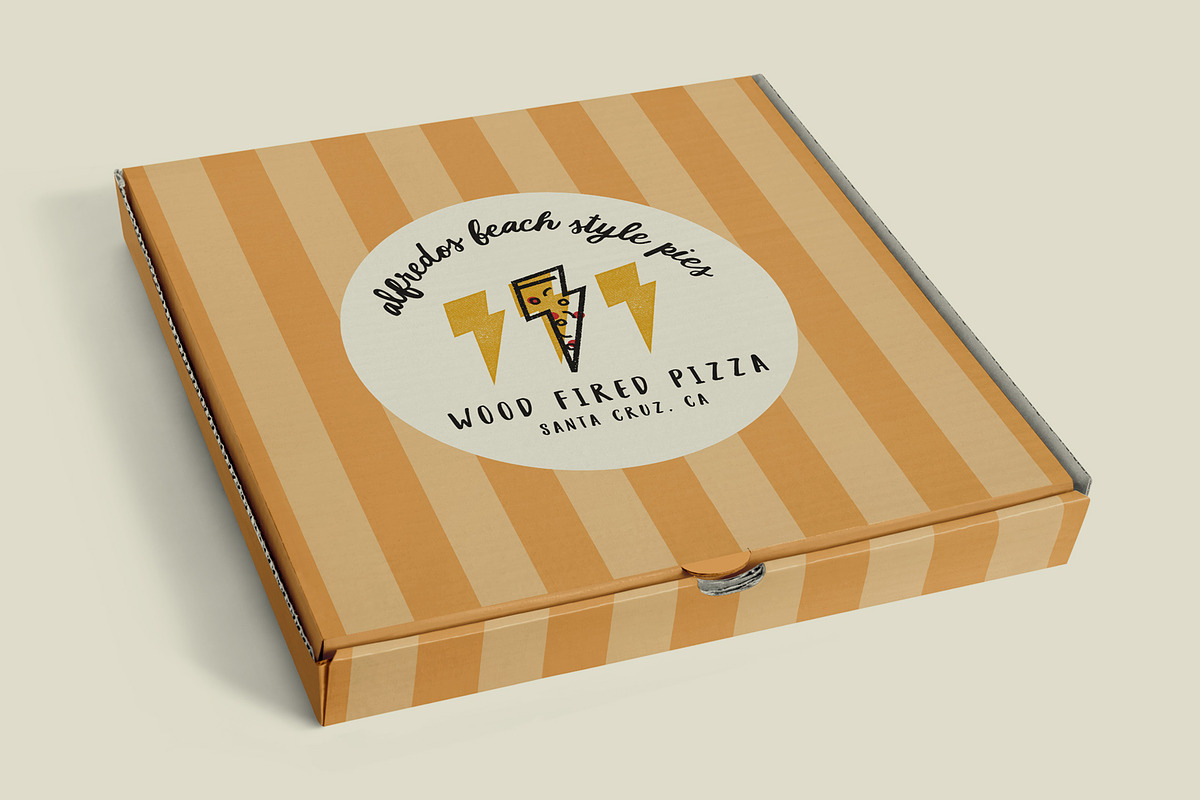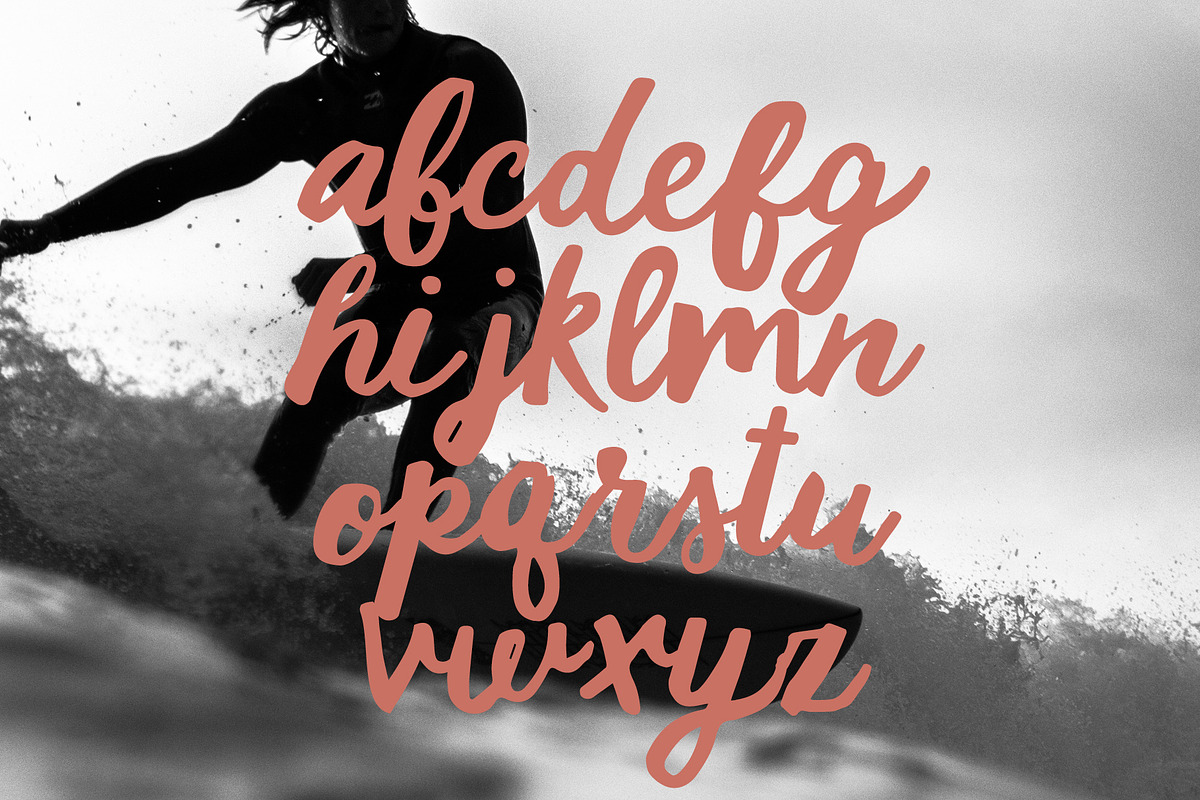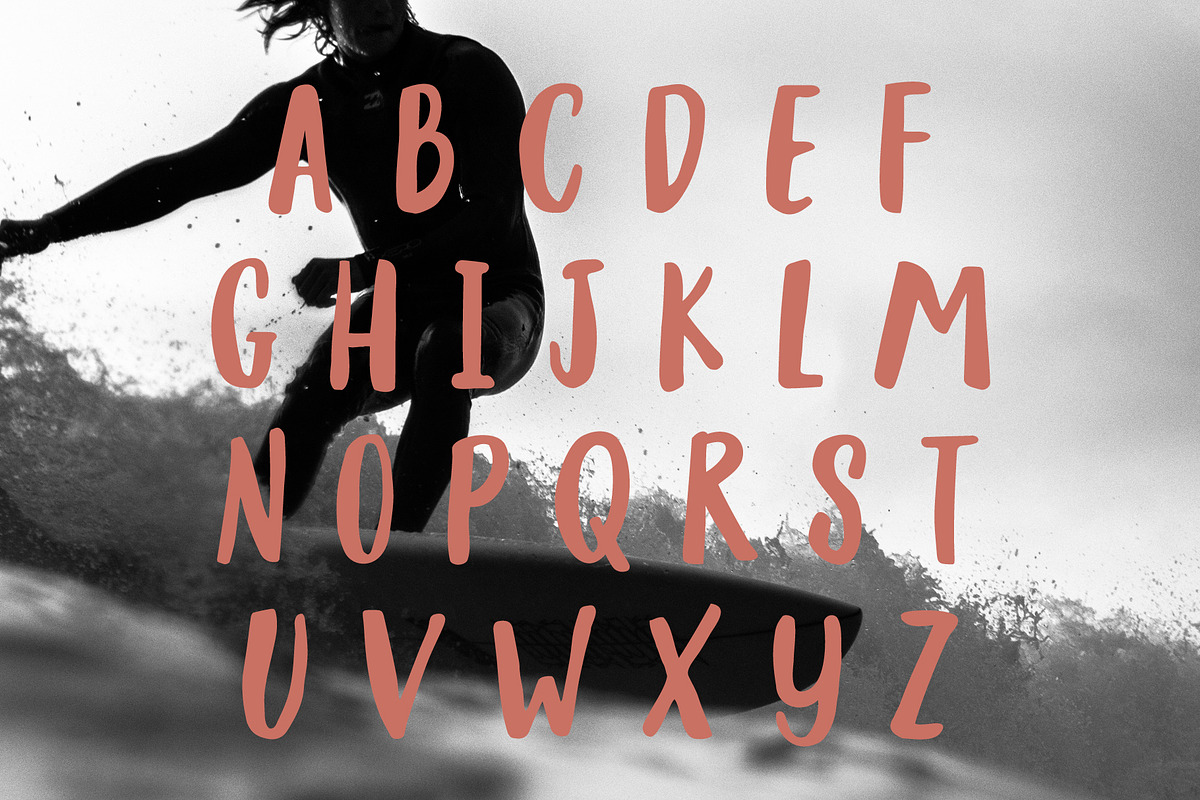
Cali Style Font
Looking for a font with hand drawn letters, which will give your project a unique hand written script feel, well look no further. Introducing Cali Style, literally hand lettered using an ink brush on paper. The authenticity is unparalleled! Cali Style definitely has a surf vibe, but it is not limited to one genre, with both script and all caps, this fonts offers a wide-ranging application.
- Cali Style CAPS
- Cali Style Cursive